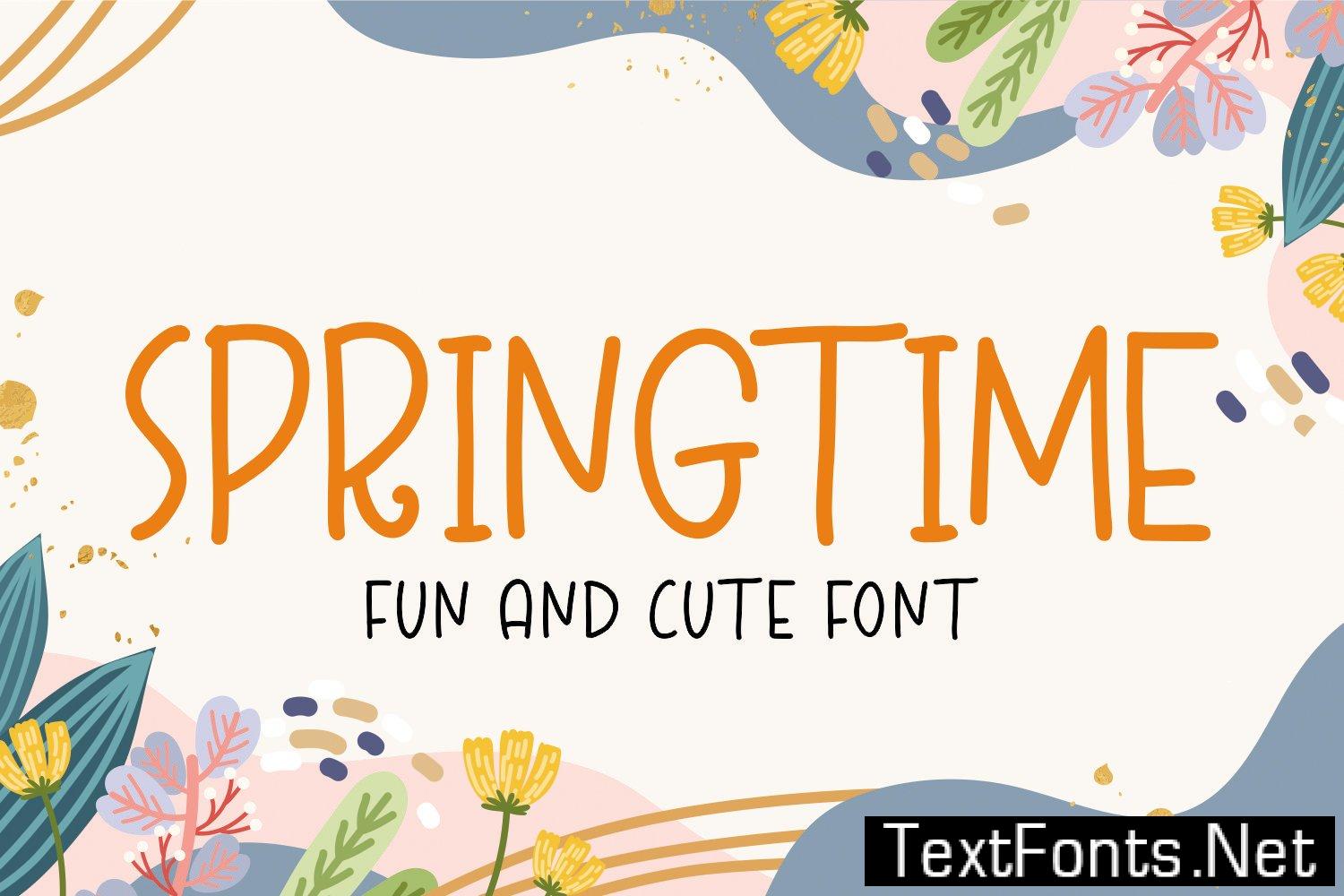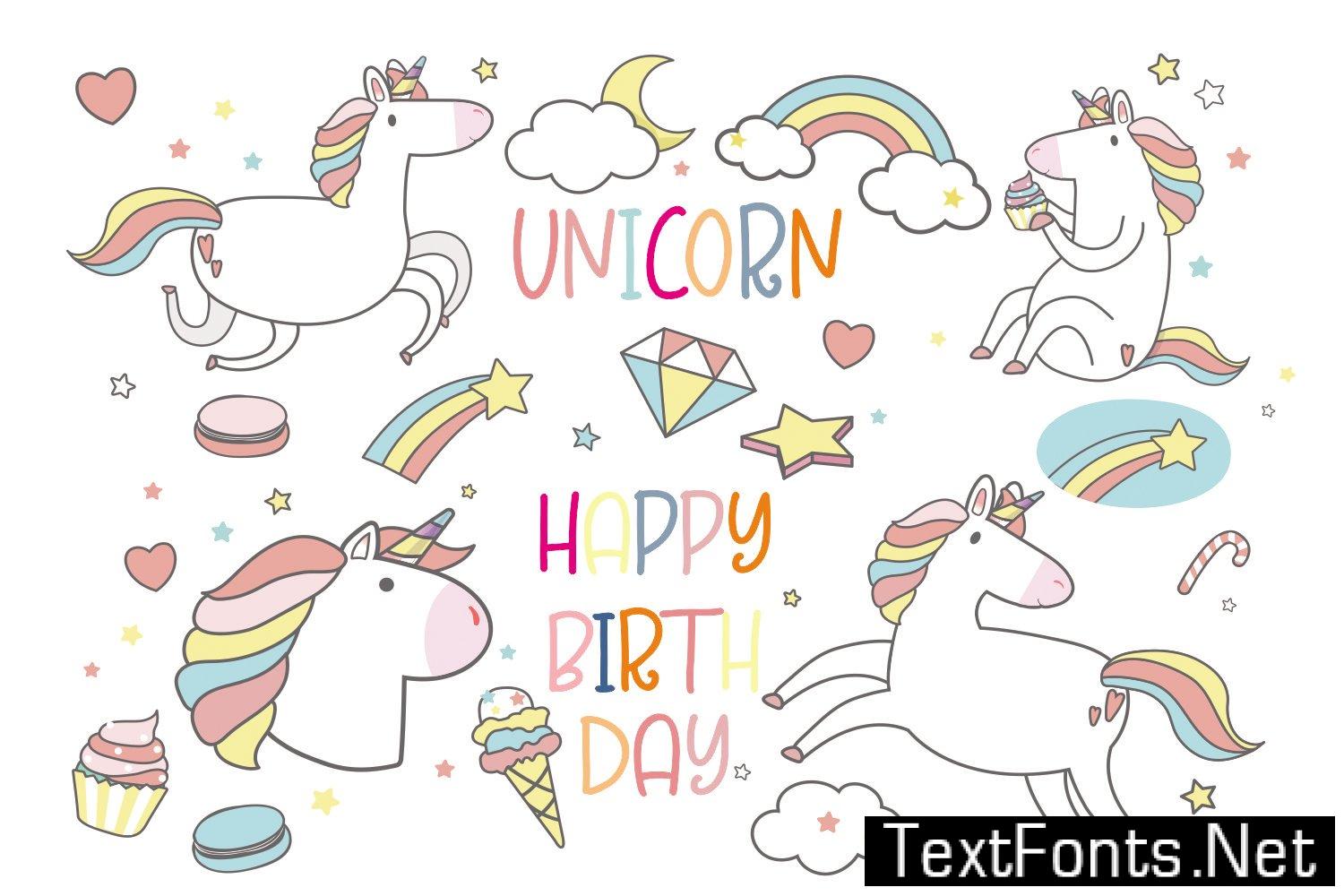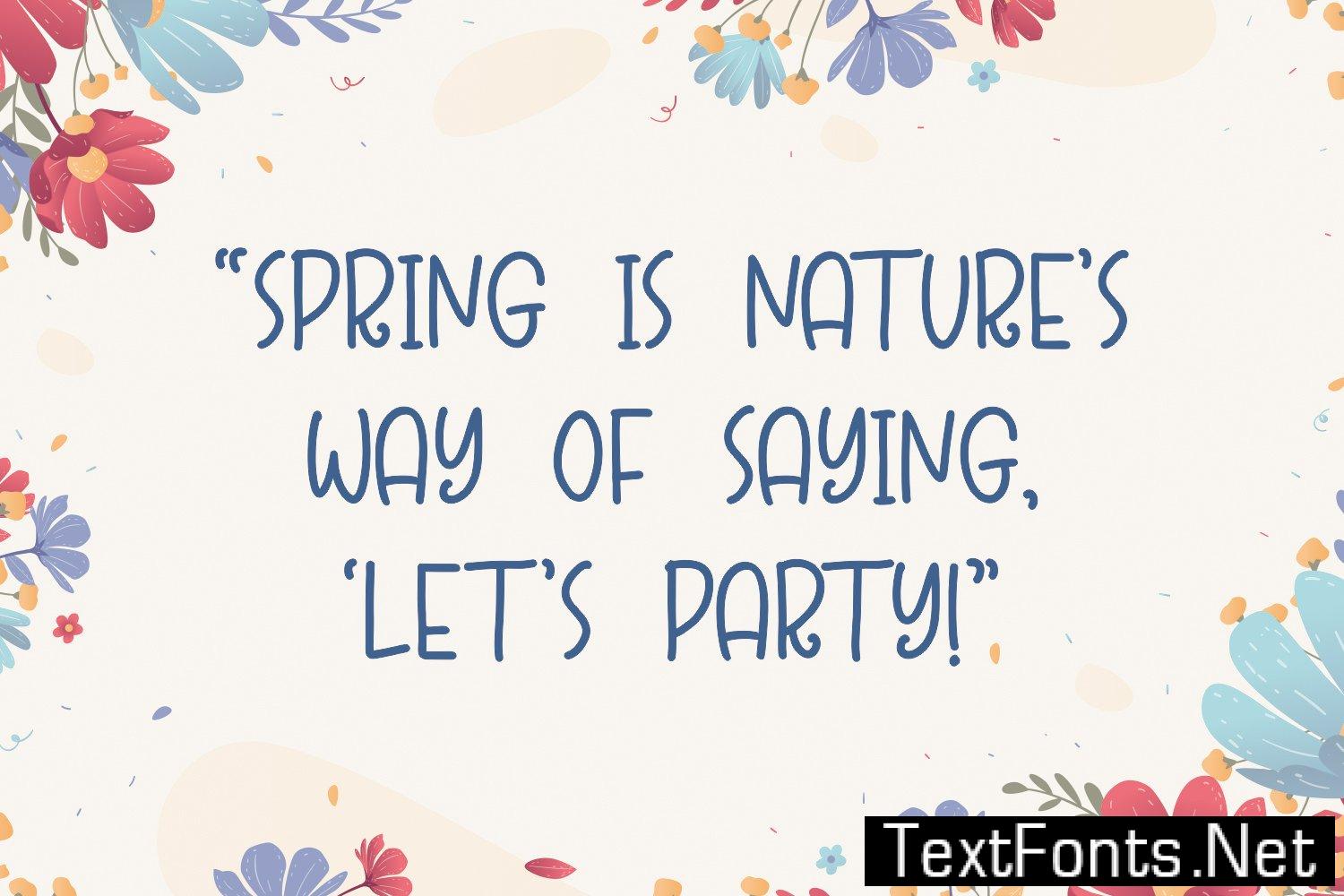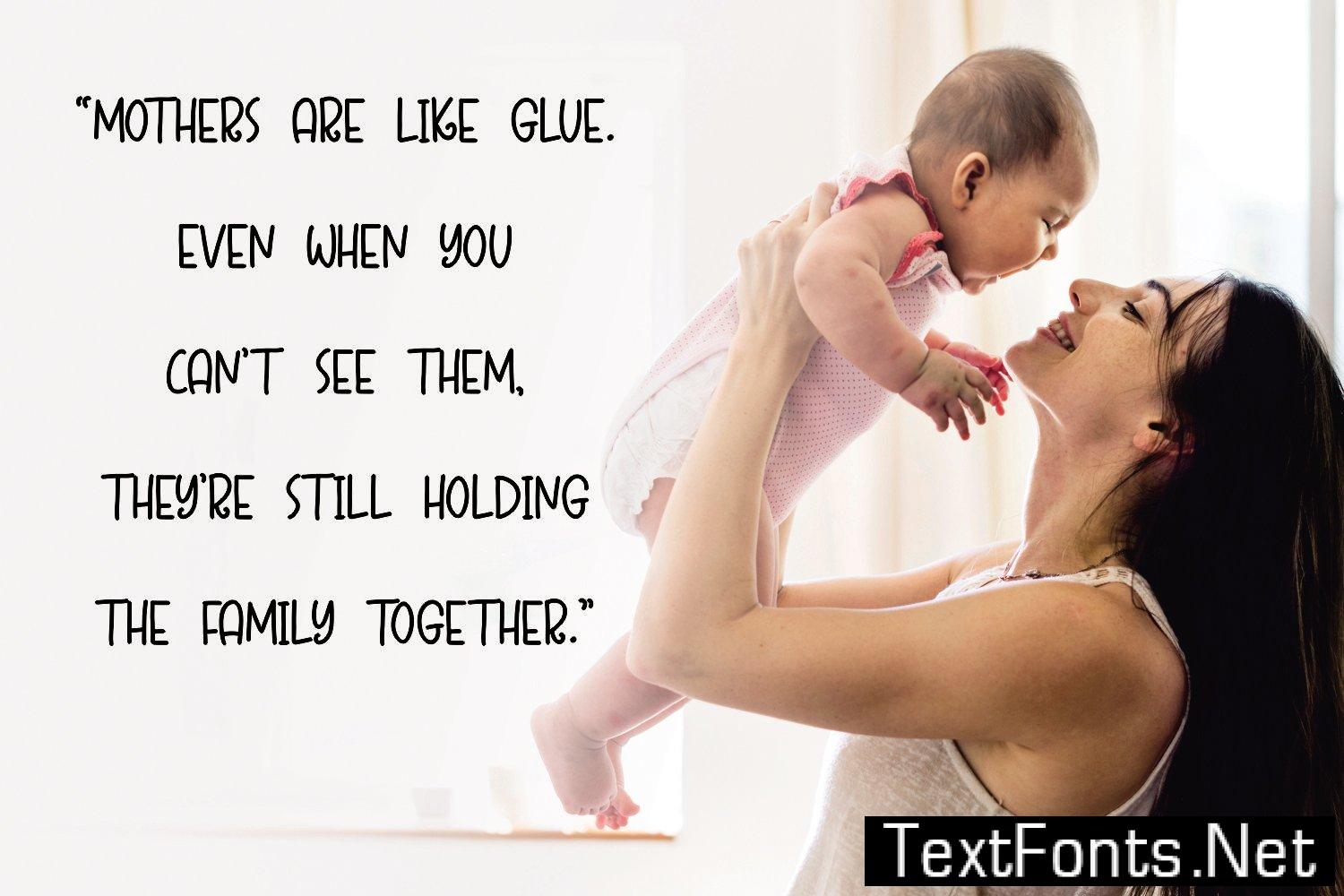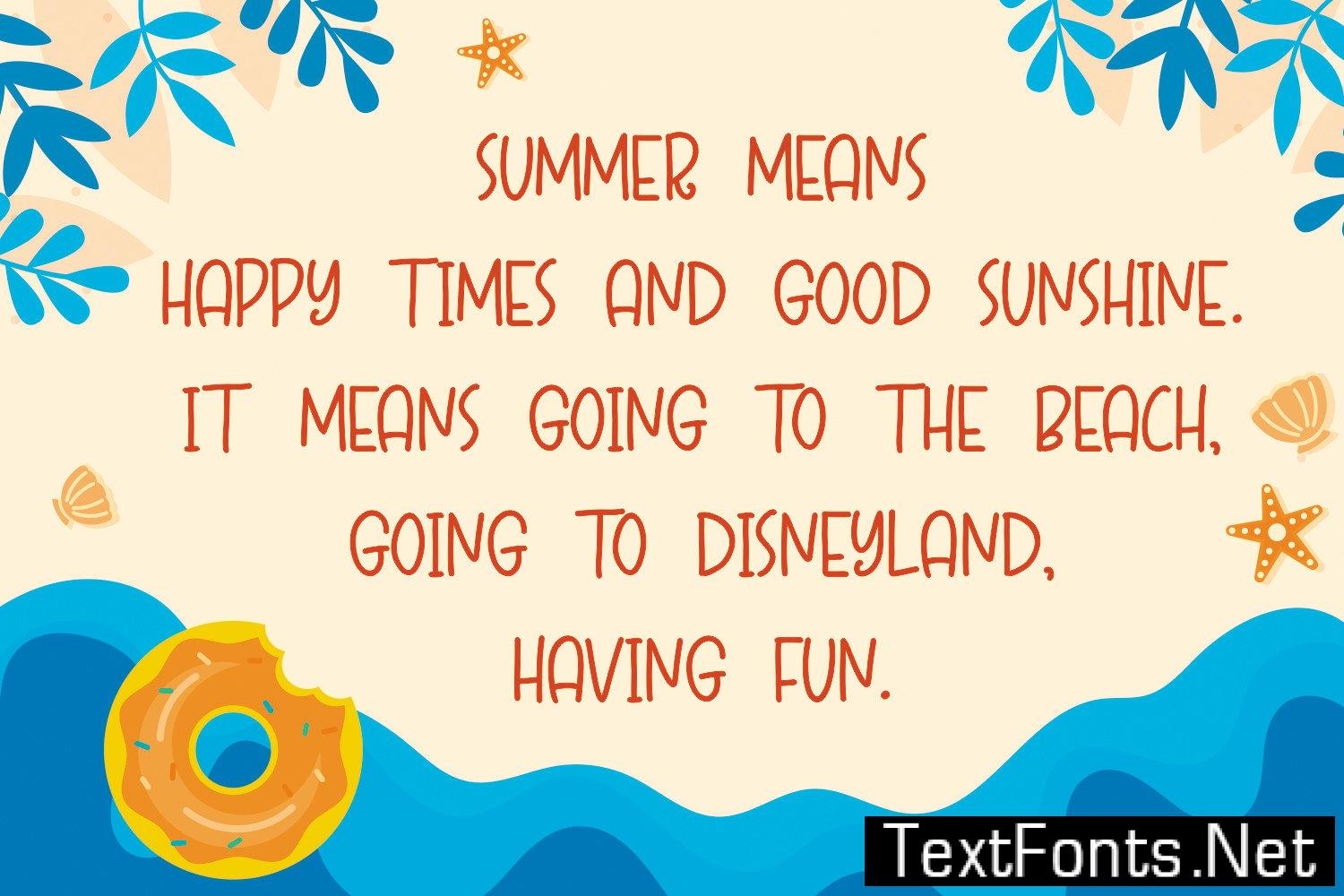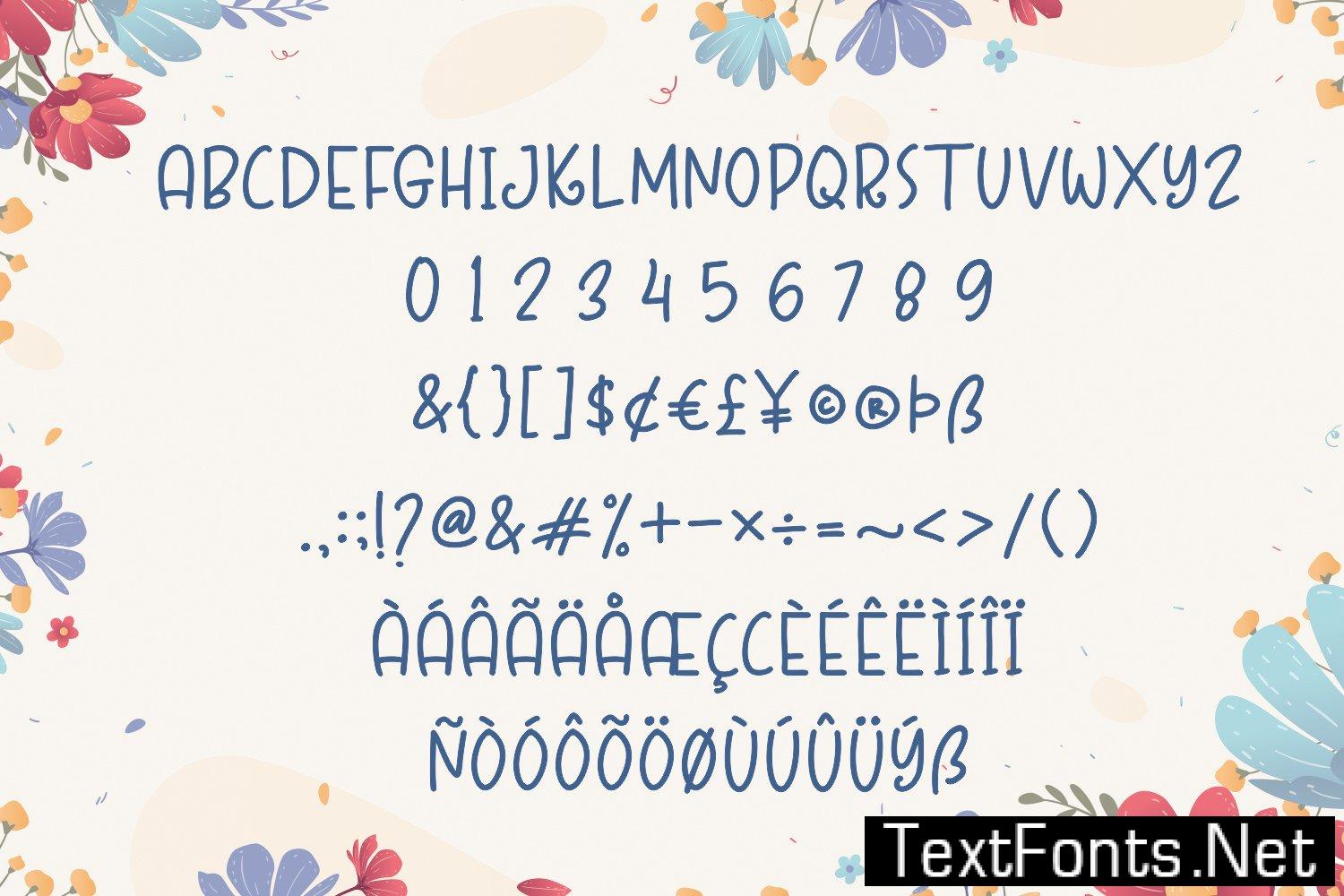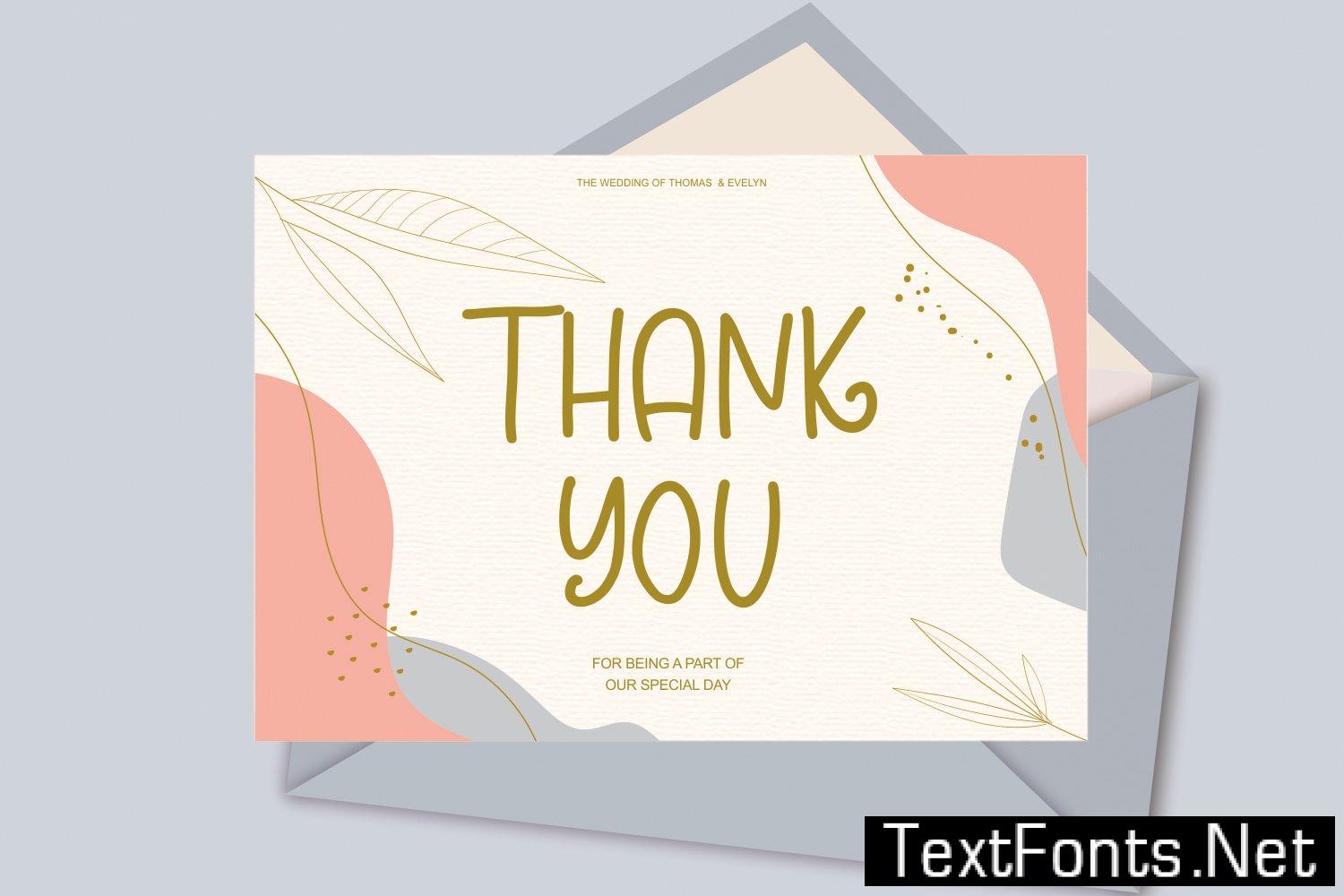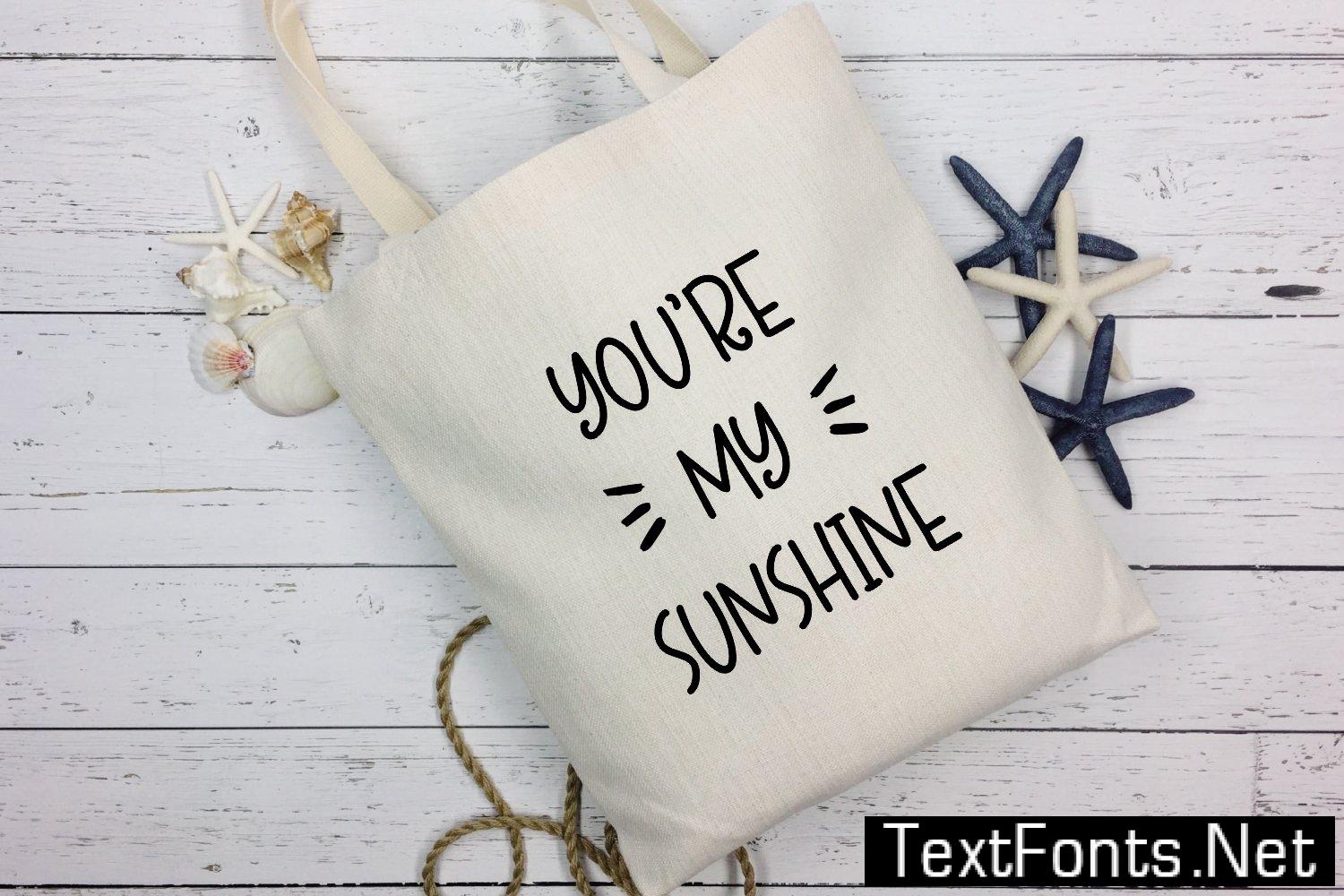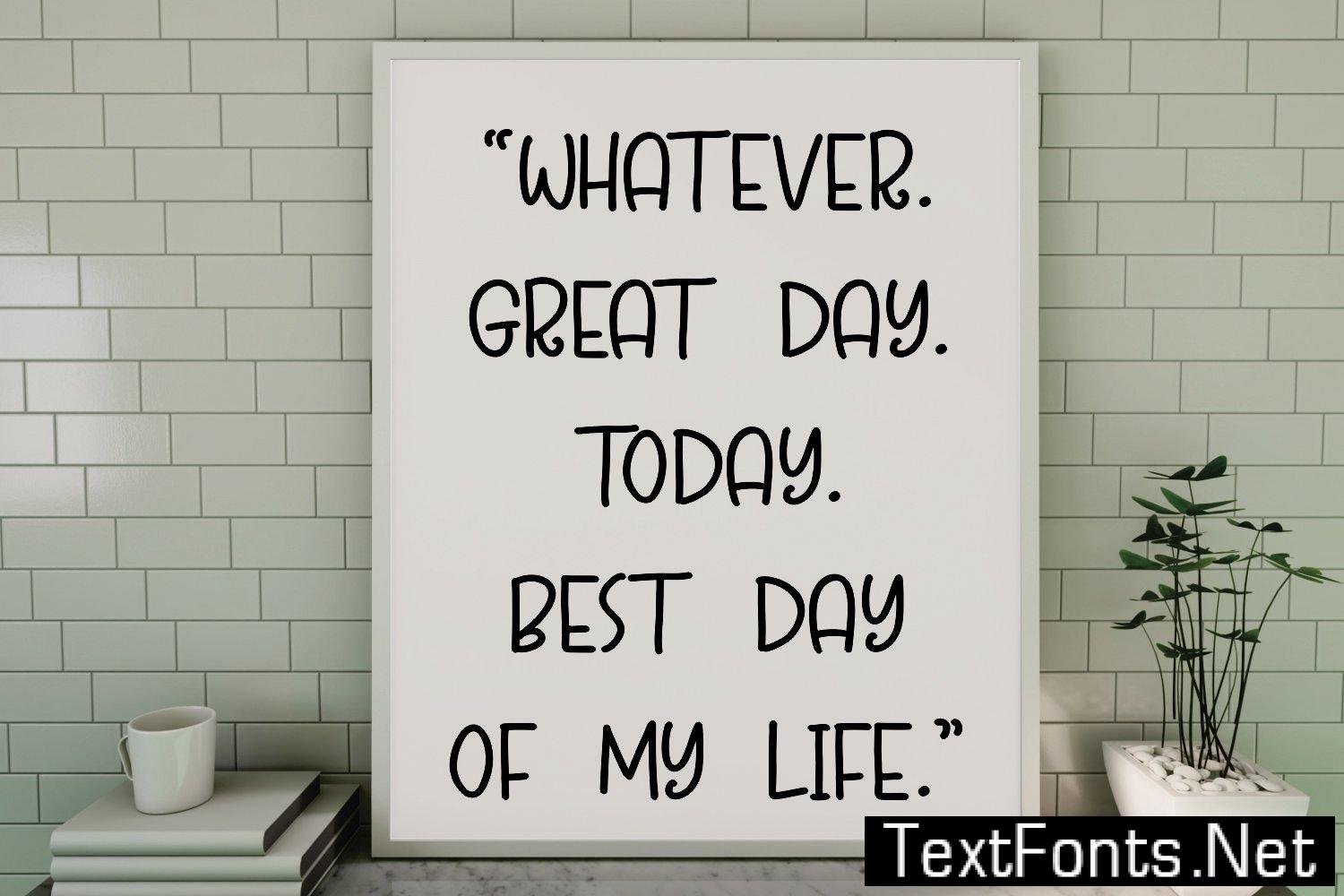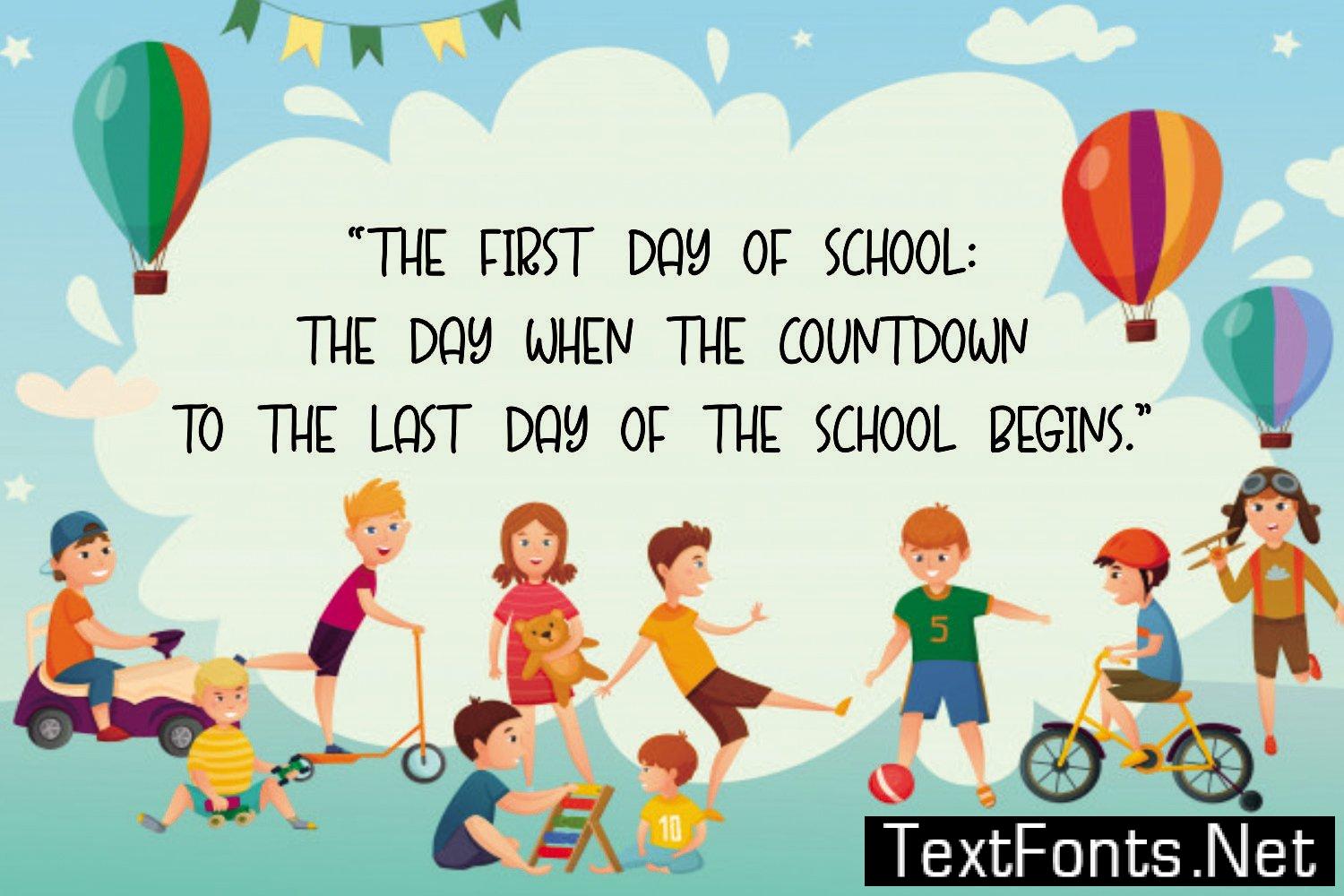
SPRINGTIME – Summer Font WBX5VKV
Introducing Springtime, a fun and cute handwritten font that adds a touch of charm to any design. Its natural and unique style makes it incredibly versatile, perfect for a wide range of projects. Whether you’re working on crafting projects, branding, or decorative pieces, Springtime provides a personalized look that stands out.
Springtime is PUA encoded, giving you easy access to all glyphs and swashes for seamless customization. This makes it ideal for wedding invitations, blogs, logos, and beautiful frames for your home. Use it for business materials, book covers, stationery, marketing campaigns, and magazines—the possibilities are endless!
Let your creativity flow with Springtime. It’s perfect for t-shirts and apparel, promotional materials, sports events, music festivals, quotes, and special events. The only limit is your imagination! Add Springtime to your toolkit and watch your designs come to life with a delightful and personalized touch.